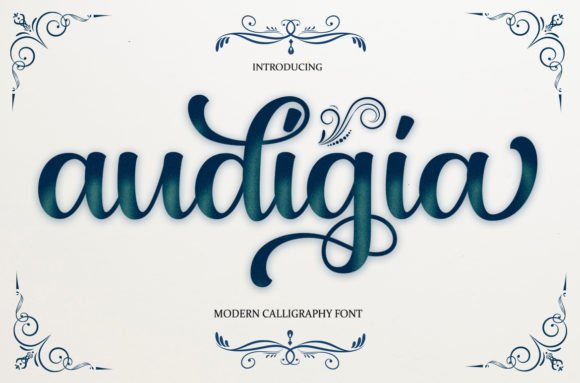
Introduction to Audigia Font
Audigia is a gorgeous and bold handwritten font, crafted to give your headlines and logotype projects a stylish touch.
This font reads strong, confident, and dynamic and can add tons of nostalgic character to your designs Audigia is PUA encoded which means you can access all of the glyphs and swashes with ease.